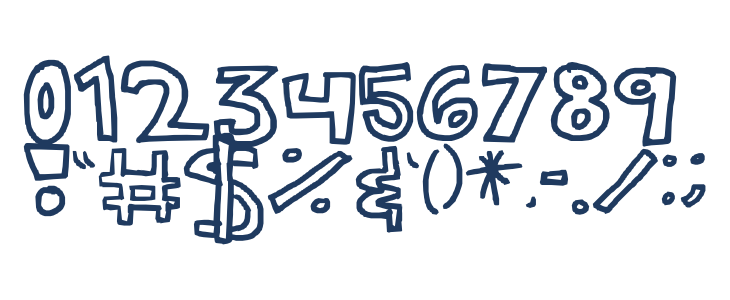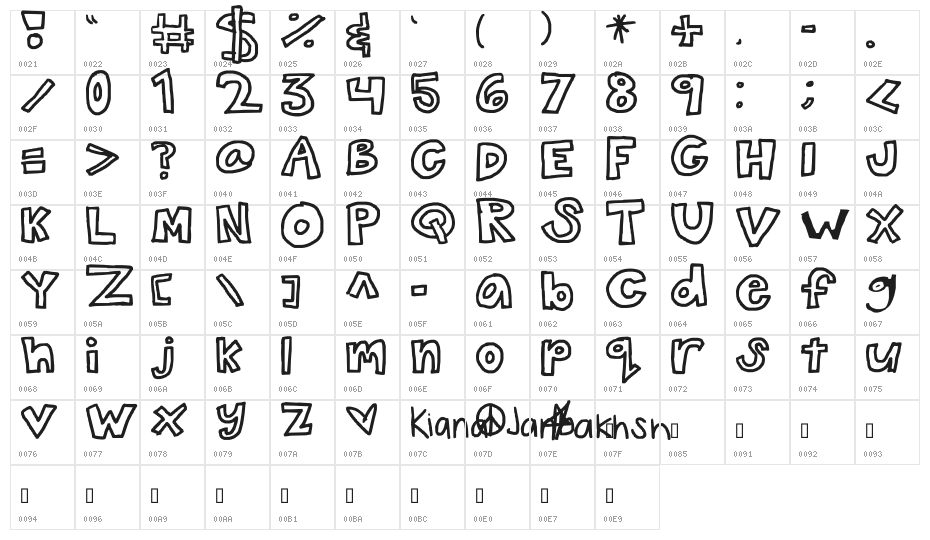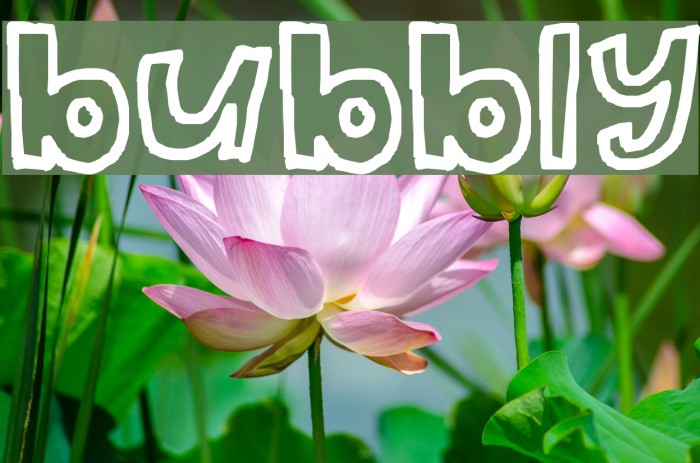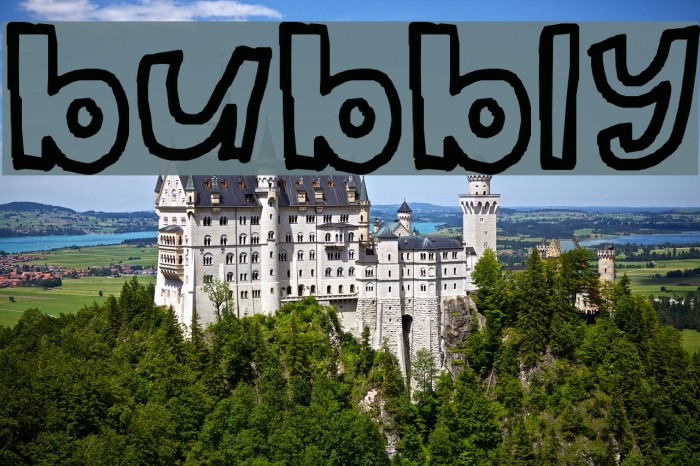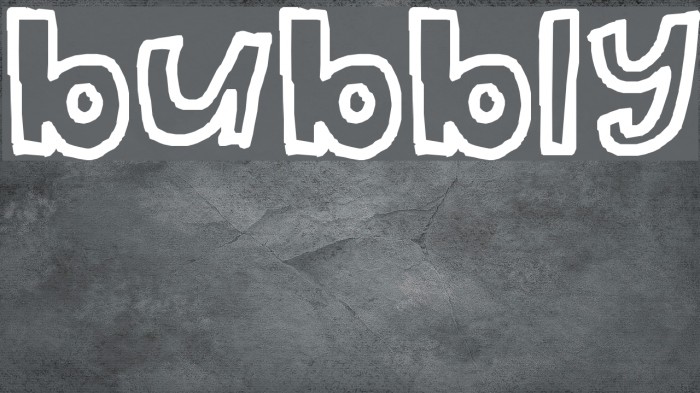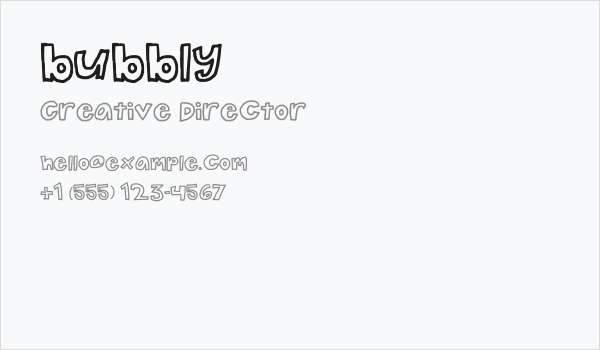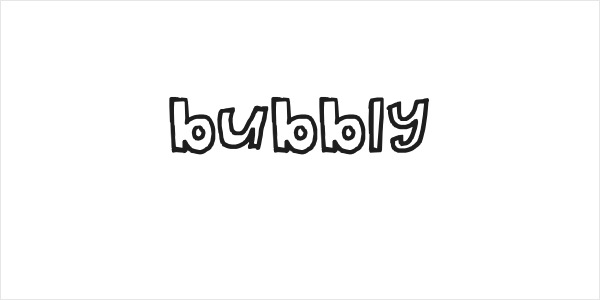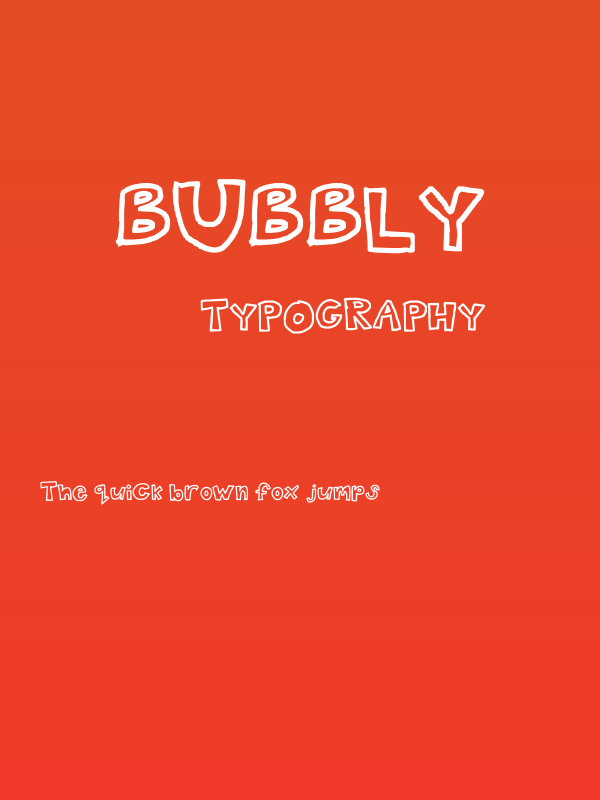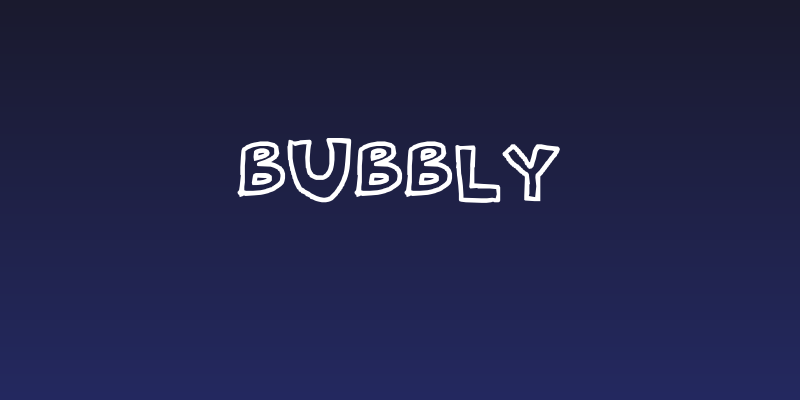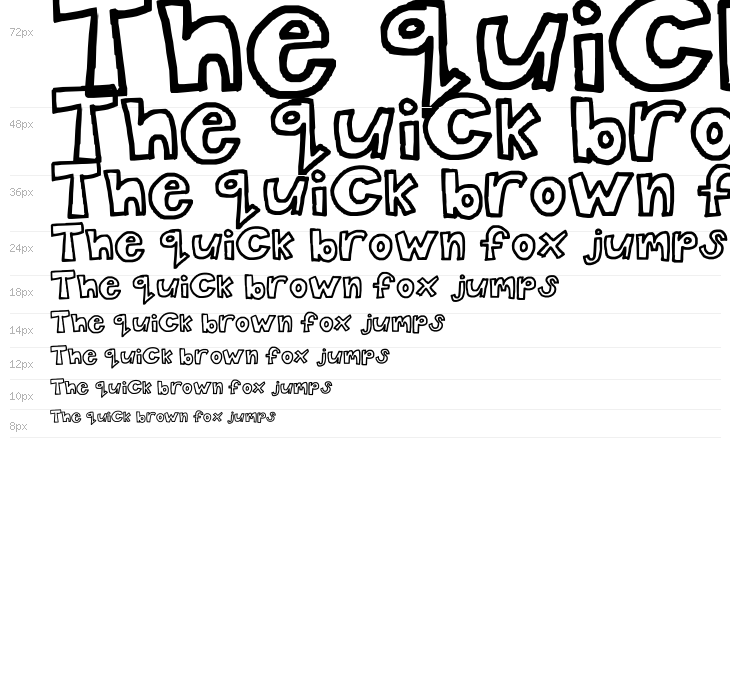
bubbly Font
bubbly Description
This playful and whimsical font features bold, rounded characters with a hand-drawn appearance. The letters are outlined with a thick black stroke, giving them a cartoonish and lively feel. The uppercase and lowercase letters maintain a consistent style, with exaggerated curves and a slightly irregular shape that adds to the font's charm. Numbers and special characters follow the same design principles, ensuring a cohesive look across all text elements. This font is perfect for projects that require a fun and informal touch, such as children's books, party invitations, or playful branding.
| Proposed Projects | Ideal for children's books, party invitations, playful branding, and casual designs. |